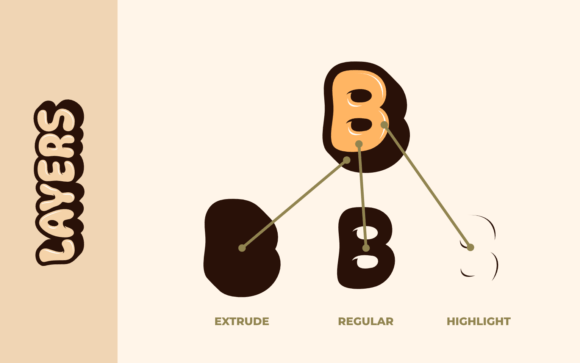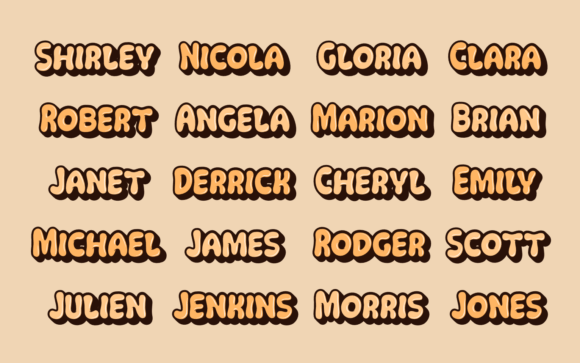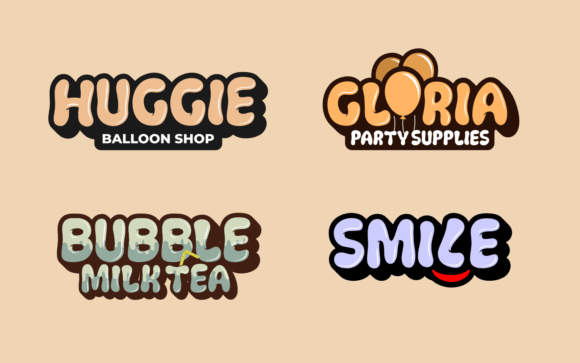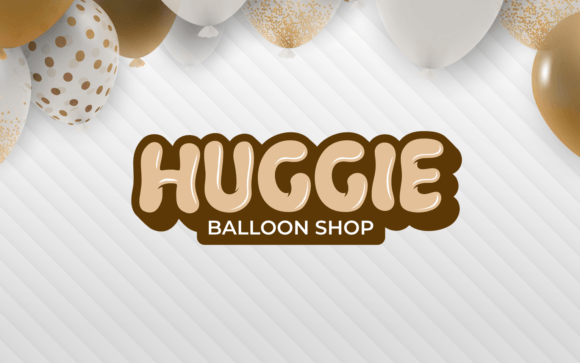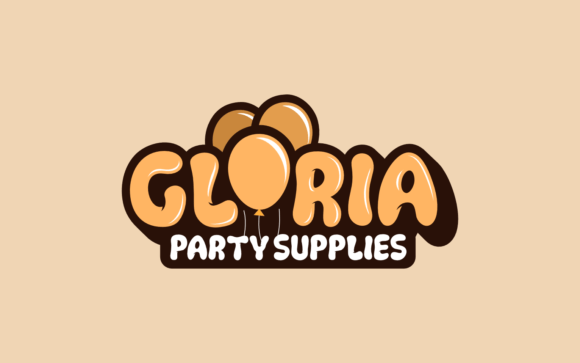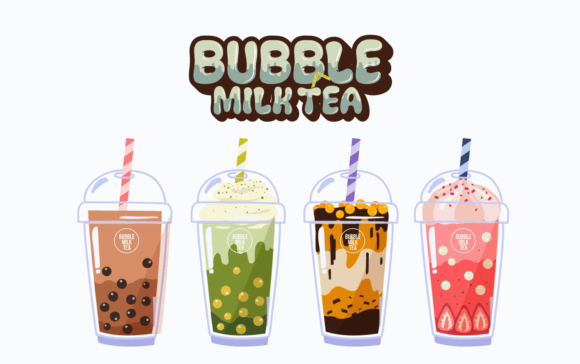
Introducing Ballong Font: The Ultimate Display and Bubble Font for Cheerful Designs
Are you tired of using the same old fonts for your designs? Do you want to add a touch of playfulness and cheerfulness to your projects? Look no further than Ballong Font! This exuberant display and bubble font is perfect for designers and crafters who want to create eye-catching and fun designs that pop.
What is Ballong Font?
Ballong Font is a unique and vibrant font that is designed to add a touch of whimsy to your designs. Its bubble-like shape and exuberant style make it perfect for creating eye-catching headlines, titles, and text that will grab the attention of your audience. Whether you’re working on a spring design, a marketing material, or a poster, Ballong Font is the perfect choice.
Characteristics of Ballong Font
So, what makes Ballong Font so special? Here are some of its key characteristics:
- Exuberant and playful style: Ballong Font has a unique and energetic style that is sure to add a touch of fun to your designs.
- Bubble-like shape: The font’s bubble-like shape gives it a playful and whimsical feel that is perfect for creating eye-catching designs.
- Display and headline font: Ballong Font is designed to be used as a display and headline font, making it perfect for creating titles, headings, and other text that needs to stand out.
- Multilingual support: Ballong Font supports multiple languages, making it a great choice for designers who work with international clients or want to create designs for a global audience.
Use Cases for Ballong Font
So, how can you use Ballong Font in your designs? Here are some ideas to get you started:
- Covers and book titles: Use Ballong Font to create eye-catching book covers and titles that will grab the attention of readers.
- Posters and flyers: Ballong Font is perfect for creating posters and flyers that need to stand out and grab attention.
- Spring designs: The playful and cheerful style of Ballong Font makes it a great choice for spring designs, such as Easter or Mother’s Day promotions.
- Marketing materials: Use Ballong Font to create eye-catching marketing materials, such as brochures, business cards, or social media graphics.
- Crafting and DIY projects: Ballong Font is also perfect for crafters and DIY enthusiasts who want to add a touch of personality to their projects, such as handmade cards, scrapbooking, or party decorations.
Tips for Using Ballong Font
Here are some tips for using Ballong Font in your designs:
- Use it sparingly: Ballong Font is a bold and eye-catching font, so use it sparingly to avoid overwhelming your design.
- Pair it with a simple font: Pair Ballong Font with a simple font to create contrast and make your design more readable.
- Experiment with colors: Ballong Font looks great in bright and bold colors, so don’t be afraid to experiment and find the perfect color for your design.
In conclusion, Ballong Font is a unique and versatile font that is perfect for designers and crafters who want to add a touch of playfulness and cheerfulness to their designs. Its exuberant style, bubble-like shape, and multilingual support make it a great choice for a wide range of projects, from covers and posters to marketing materials and crafting projects. So why not give Ballong Font a try and see how it can elevate your designs?